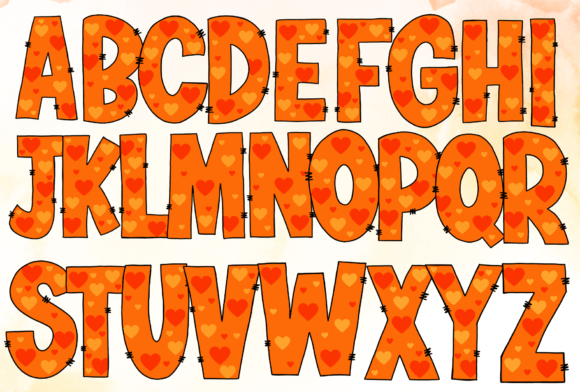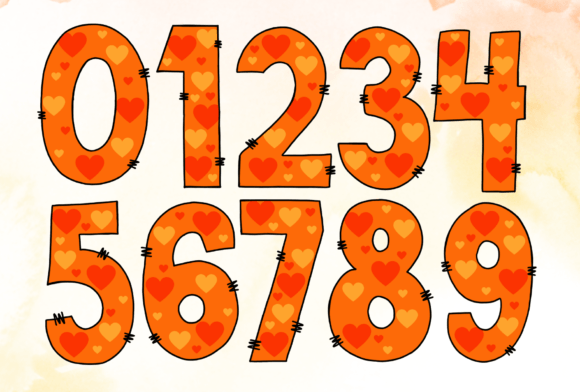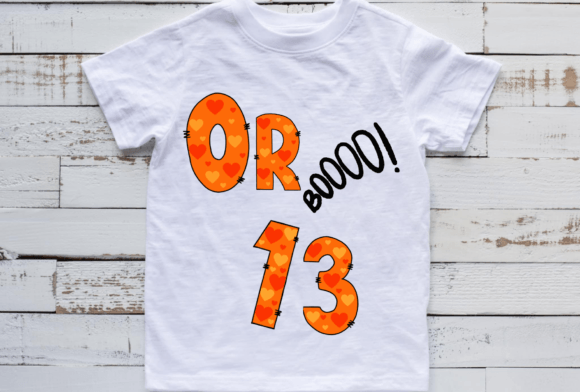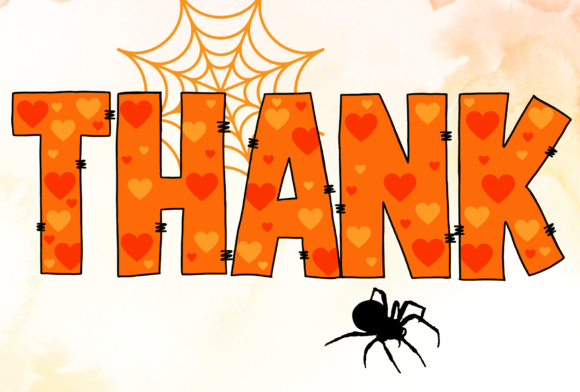
The Boo Heart Font: A Fun and Bold Addition to Your Design Arsenal
I’ll never forget the time I was working on a Valentine’s Day project for a client, and I just couldn’t find the perfect font to match the playful and cheerful vibe they wanted. I scoured the internet, tried out dozens of fonts, but nothing seemed quite right. That was until I stumbled upon the Boo Heart font. With its bold, bright colors and adorable heart patterns filling each letter, it was love at first sight! In this article, I’ll share my experience with the Boo Heart font, its features, and how to make the most of it in your designs.
An Honest Review of Boo Heart Font
- ✨ The font’s bold and playful personality makes it perfect for designs that need a cheerful touch.
- ✅ The bright colors and heart patterns add a fun and whimsical feel to any design.
- 💕 It’s perfect for Valentine’s Day, love-themed designs, or any project that needs a cute and playful touch.
While the Boo Heart font is amazing, there are a few things to keep in mind:
- ⚠️ The font’s bold style might not be suitable for designs that require a more subtle or elegant look.
- 🤔 Some of the heart patterns can be a bit intricate, which might make the font harder to read in smaller sizes.
The Story Behind Boo Heart Font
The Boo Heart font was designed by a team of creatives who wanted to create a fun and playful font that would bring joy to designers and crafters. Inspired by the classic heart symbol, they experimented with different patterns and colors to create a unique and bold font that’s perfect for love-themed designs.
| Font Name | Boo Heart Font |
| Author | Candygirl Art |
| What is the Boo Heart font best used for? | The Boo Heart font is perfect for love-themed designs, Valentine’s Day projects, and any design that needs a playful and cheerful touch. |